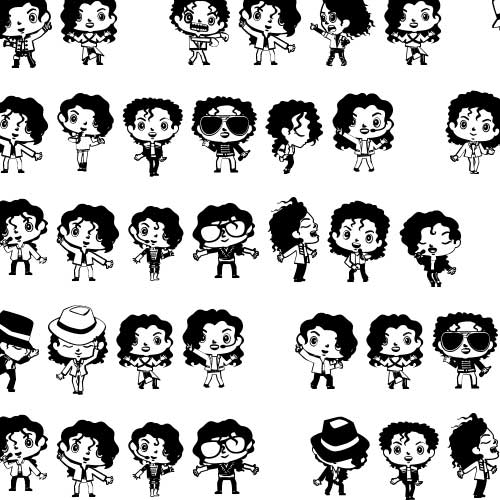
DB Smooth Criminal - DB
This fun doodlebat font features 26 characters of the king of pop. Perfect for cards, crafts, gifts, planner stickers, scrap book pages, parties, classrooms and more!